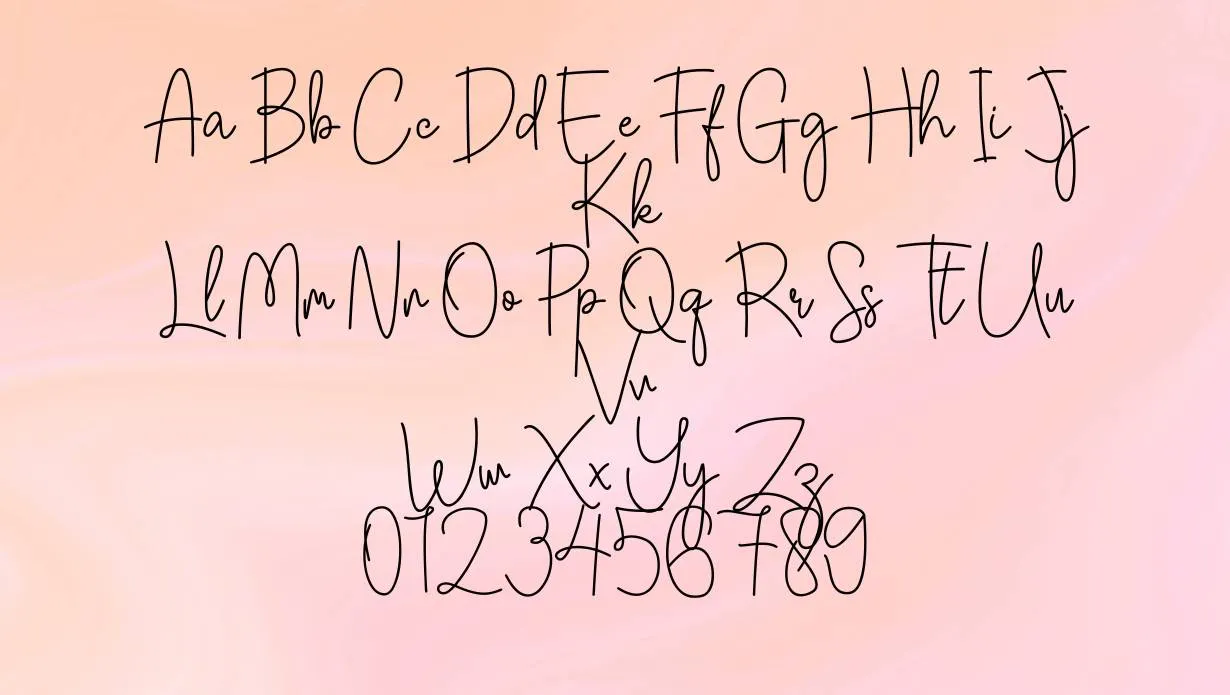
Southwill Font has a modern and sleek appearance, making it ideal for corporate branding, websites, and contemporary editorials. This font often supports file formats like OTF, TTF, and WOFF, ensuring adaptability across various design software and web applications.
Its clean and contemporary style adds a touch of sophistication to any design, making it well-suited for modern and stylish projects. With its sleek and polished design, Southwill Font brings a sense of modernity and professionalism to any project it’s applied to.